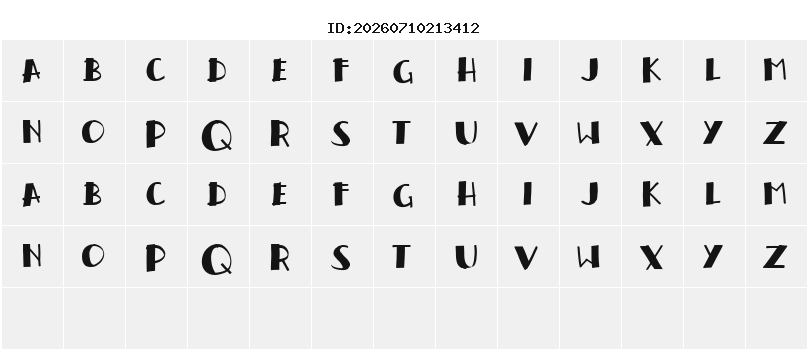
handrelief Preview
• Font Name: handrelief
• Font ID: handrelief:Version 1.00
• Full Font Name: handrelief
• Version: Version 1.00 March 4, 2012, initial release
• PostScript Name: handrelief
• Character Count: 53
• Designer: dylan tellesen and max infeld
• Description: dingleberry is a great font
About handrelief.ttf
handrelief.ttf is a modern, elegant sans-serif font designed for ultimate readability and visual harmony. Perfect for branding, headlines, web design, and print materials.